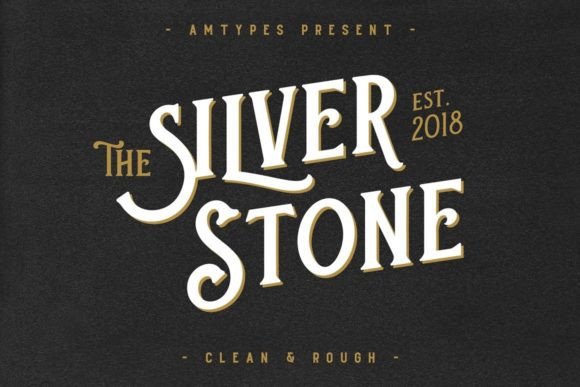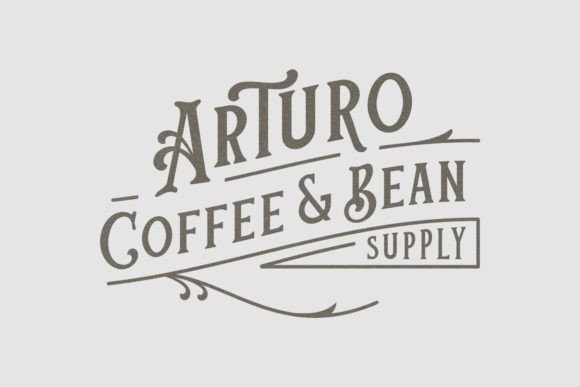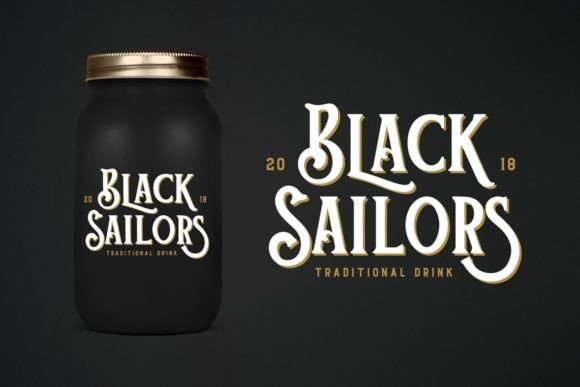
Silver Stone is a new vintage serif font inspired by vintage packaging, vintage book covers, and vintage tins. This font is perfect for a vintage design logo, branding, or product packaging.